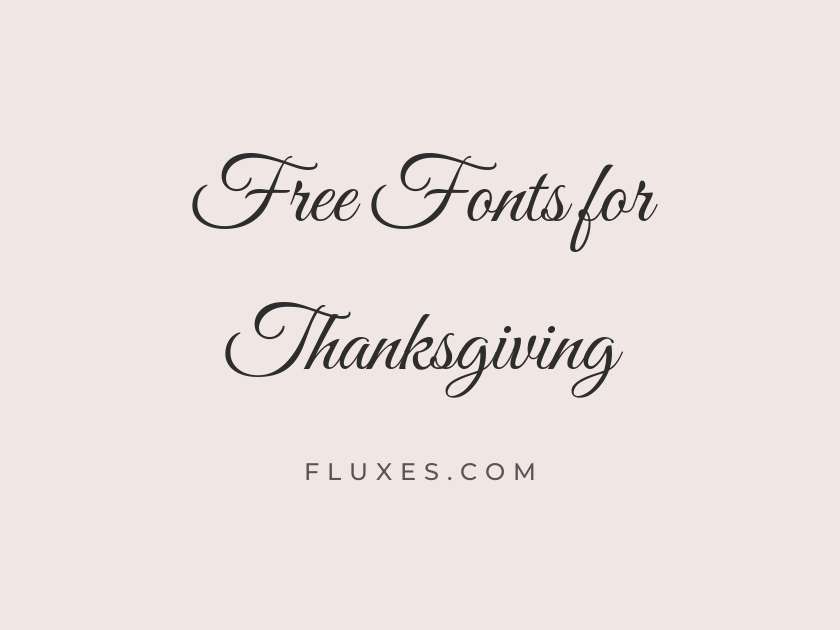
60 Best Free Fonts for Thanksgiving
Thanksgiving design lives at the intersection of harvest rustic charm and old-fashioned formality, which means the right typeface can swing from a hand-lettered chalkboard menu to a Bodoni-esque place card in the same afternoon. Whether you are building a printable menu, an Instagram graphic for a food blog, a wedding-style dinner invitation for the family table, or a big bold “Give Thanks” banner, free fonts from Google Fonts can cover every mood of the season without costing a cent. The styles below lean into warm scripts, carved woodtype, cozy slab serifs, and the kind of vintage serifs that feel like they belong on a hundred-year-old recipe card.
A flowing calligraphic script with long, confident tails, Great Vibes reads like it was written with an actual quill dipped in cider. It suits a formal Thanksgiving invitation or the opening line on a menu, though it needs generous size and spacing to stay legible.
Alex Brush has a looser, brushier feel than most connected scripts, less bridal and more like a note scrawled on a chalkboard easel by the pie table.
Rounder and friendlier than a wedding script, Parisienne brings a soft, romantic curl that works nicely as an accent word over a bolder serif headline rather than as a full paragraph.
This is the script for anyone chasing an engraved, old-money look, all sharp thins and dramatic loops. Reserve it for names, dates, or a single elegant line since dense text quickly turns illegible.
Allura is a lighter, more delicate script than Great Vibes, with a lower x-height that keeps it feeling intimate. It pairs beautifully with a plain serif body font on printed invitations.
Ornate and old-world, Herr Von Muellerhoff carries a formal European calligraphy feel that suits a single word, like “Blessed” or “Gratitude,” set large on a menu cover.
This script is looser and more casual than its cousins, with an unhurried, hand-scrawled quality that feels personal rather than printed, ideal for place cards written to look handwritten even when they are typeset.
Italianno leans thin and airy, almost fragile on screen, which makes it striking in large sizes on a menu header but risky at small print sizes where its hairlines can disappear.
One of the most delicate scripts on Google Fonts, Tangerine at bold weight still keeps its elegant, thread-like quality. It was practically made for wedding-style Thanksgiving invitations printed on cream cardstock.
Sacramento is compact and upright compared to swashier scripts, so it holds up surprisingly well in smaller sizes, making it a solid choice for recipe card headers or gift tags.
Dancing Script is the reliable, everyman option in this category, bouncy and cheerful without tipping into overly formal or overly casual. It is a dependable pairing partner for almost any serif body text on a printable Thanksgiving menu.
Satisfy has a marker-brush texture that feels handmade rather than engraved, a good match for a rustic farmhouse Thanksgiving table setting or a chalkboard-style sign.
Caveat mimics genuine handwriting rather than formal calligraphy, uneven baseline and all, which makes it perfect for recipe cards, handwritten-style notes on a menu, or a casual place card.
Slightly rounder and friendlier than Caveat, Kalam has an unpretentious, notebook-scrawl energy that works well for kids’ place settings or a playful family Thanksgiving flyer.
Thin and casual, Shadows Into Light reads like a quick note stuck to the fridge. Use it sparingly for short labels since long passages can feel a little too breezy for anything formal.
Homemade Apple genuinely looks like felt-tip handwriting, thick and slightly wobbly. It is a charming choice for a bakery-style Thanksgiving dessert menu but gets muddy at very small sizes.
Gloria Hallelujah
Playful and childlike, Gloria Hallelujah suits kid-friendly Thanksgiving printables, place cards for the kids’ table, or a lighthearted social post rather than a formal dinner setting.
Bold and blunt, Permanent Marker looks exactly like its name suggests, a thick felt marker on poster board. It is a fun choice for a casual “Happy Thanksgiving” sign or a football-watching party graphic.
Sriracha has a slightly informal, brush-pen character with a bit more polish than a marker font, useful for food blog headers or casual recipe titles.
Whatever direction you take, sticking to free Google Fonts means you can experiment freely across a whole season of Thanksgiving projects, from printable place cards to a full recipe blog redesign, without ever worrying about licensing.
With this range of scripts, slabs, and rustic display faces on hand, building a cohesive Thanksgiving look becomes a matter of taste rather than budget. Mix a little formality with a little farmhouse charm, and the table will look as good as the food tastes.